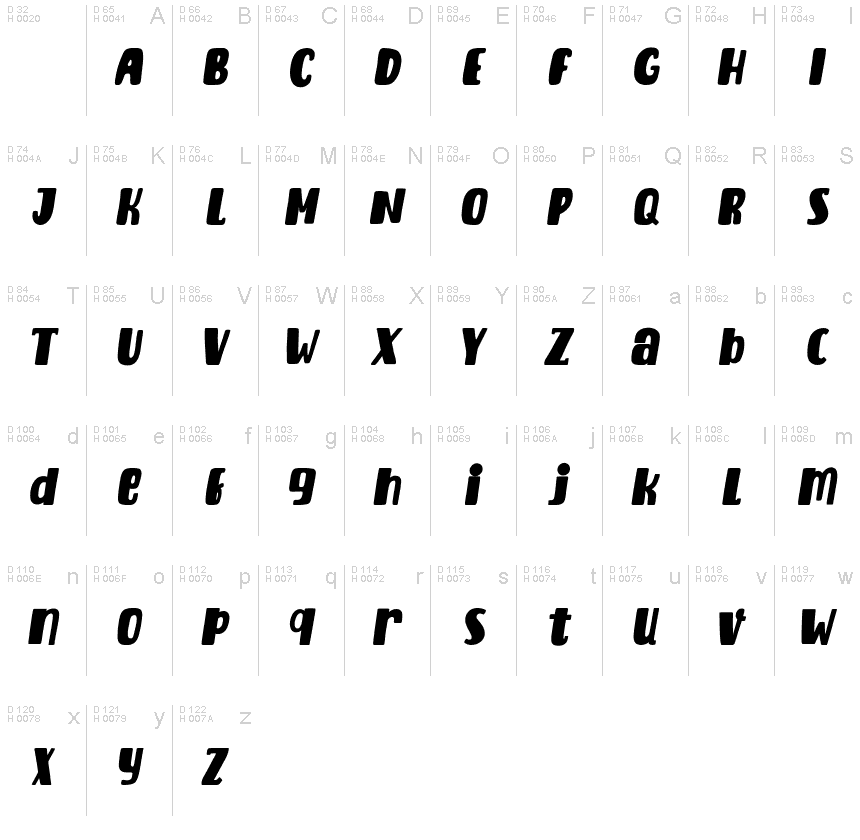
Cardifa Free Font Regular
Cardifa, designed by Maulana Creative, is an extraordinary display font that commands attention with its extra-bold weight and condensed width.
This versatile font is perfect for a wide range of projects, including bold headlines and titles that demand to be noticed. Its clean lines and strong presence make it ideal for branding and logo designs that require a modern, edgy aesthetic. Cardifa's distinct style also lends itself well to impactful poster designs, magazine layouts, and eye-catching advertisements.
Let this striking font elevate your next creative project to new heights of boldness and sophistication.